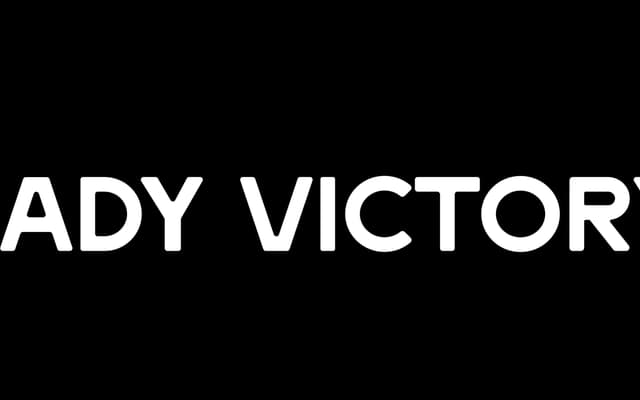
Lady Victory
A wide, squared display typeface with hand-lettered character, suited to headlines, strap lines and catch words.
Wide letterforms and squared geometry give Lady Victory a bold, block-like presence at large sizes. Hand-lettered eccentricities add warmth and prevent the squareness from feeling mechanical. Best used for display headlines and short lines where its personality can read clearly.
Wide, squared letterforms with hand-lettered personality place this firmly in the display category; the squared geometry and eclectic character distinguish it from conventional grotesques or geometric sans families.